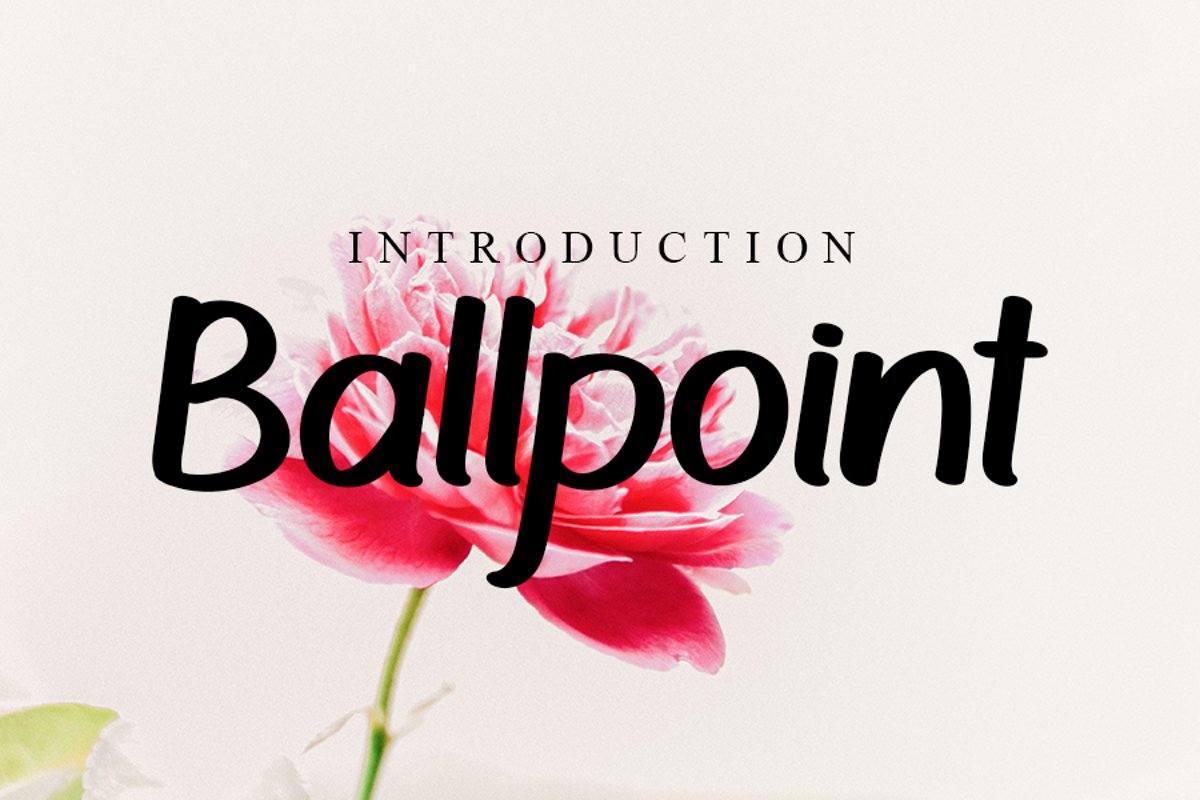
Ballpoint
Ballpoint is a neat lettered handwritten font, created with the help of a brush pen. Its casual style will appeal to a wide range of crafty ideas, from letterheads and titles, to stationery.
+More than 100+ Glyphs
+More than 43 Languages
+PUA-Encoded for many alternates and ligatures